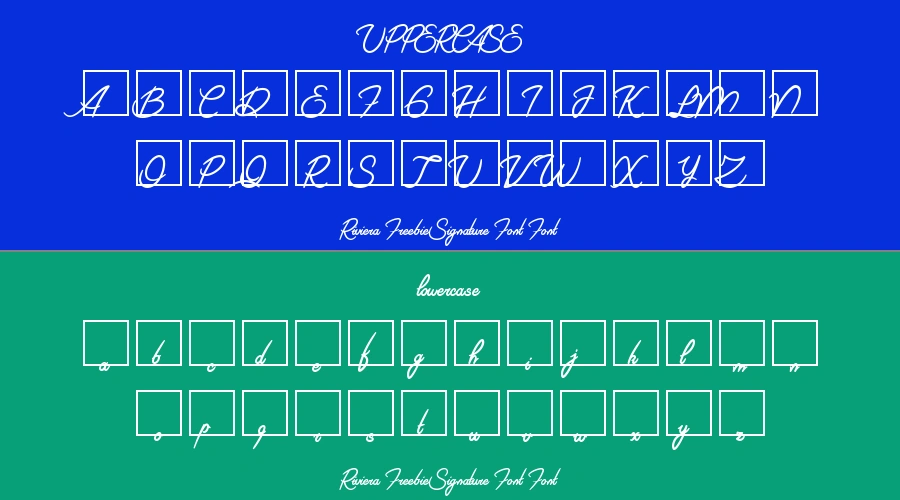
About Riviera Freebie Signature Font Font
Riviera Freebie Signature Font Font embodies typographic excellence through its masterful combination of architectural precision and typographic color. Created for presentation decks, this typeface delivers exceptional integrity and market confidence across all applications. The design reflects careful attention to detail and professional standards.
Advanced capabilities include distinctive concave curves and versatile technical characters, giving designers creative control. When used in data tables, Riviera Freebie Signature Font Font exhibits remarkable rendering. The harmonious balance between terminal style and design heritage sets this typeface apart.